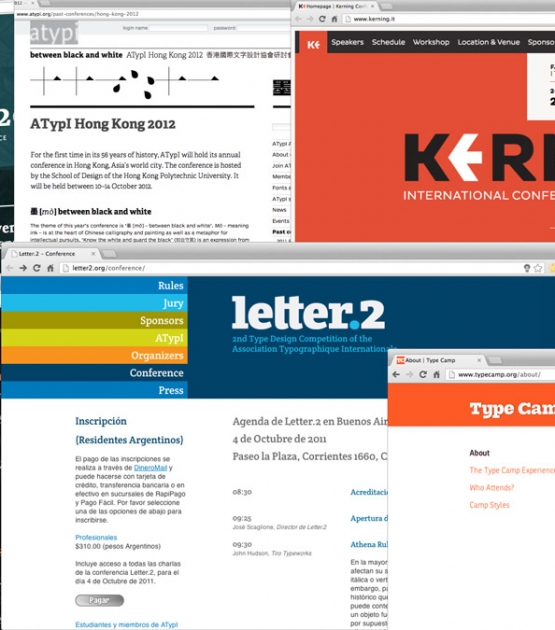
Crete
Designed by Veronika Burian . Released 2007.
The Crete font family is a surprising and memorable slab serif, great for headlines or short texts. It is perfect for display use where an unconventional and delightful impression is desired and, due to a sense of movement throughout each glyph, is able to retain the reader’s interest in text.
• First prize, 2008 Granshan Type Design Competition
Crete
A surprising and unconventional slab serif font, great for headlines or short texts.
Originally inspired by wall lettering in a small Grecian chapel, the Crete font family by Veronika Burian was adjusted considerably to work in text. It is perfect for display use where an unconventional and delightful impression is desired. Due to a sense of movement throughout each glyph, Crete deftly retains the reader’s interest in a text environment.
The name of each style (Thick, Thin, and Round) refers to the change in the serifs themselves. So instead of increasing vertical stem widths from one weight to the next, as is common, the unusual serifs and terminals carry the tone, adding to the graceful appearance in the Thin and providing a more robust feel in the Thick style. Both are metrically interchangeable, so text will not reflow when mixed.
Crete Round is more independent from the two original styles, with changed terminals and serifs to create two new fonts that deliver a more contemporary and functional appearance.
The accompanying italics have several different lettershapes and therefore have, in some cases, their own widths, yet they always sit comfortably next to the uprights. Crete proved to be surprisingly efficient for web use and so is available under the SIL Open Source License at Google Webfonts.
When a memorable slab serif is needed, Crete’s unconventional ways fit the bill. And the limited number of weights serves to underline Crete’s primary purpose for headings, callouts, and short texts.
The complete Crete font family comes in six styles, speaks multiple languages, and, along with our entire catalogue, has been optimised for today’s varied screen and print uses.